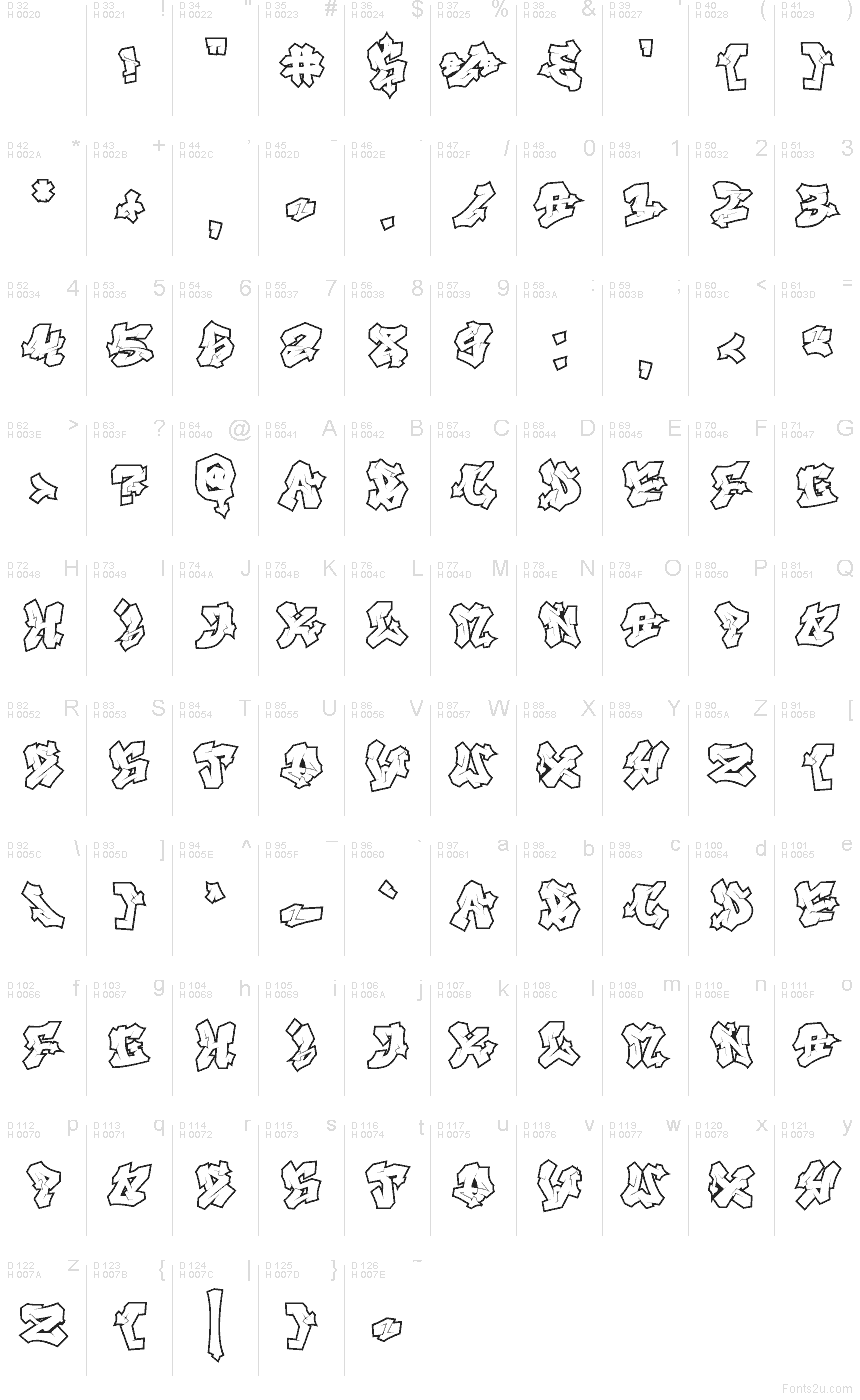
Nightclaw Vandal Outline Outline
Nightclaw Vandal Outline font by Muhammad Panji Ramdhani and Ferbiya Rahmat of Cikareotype brings the Nightclaw Vandal family to life with a jagged outline that feels chipped, sketched, and loud. The chunky graffiti shapes lock together like broken concrete tiles, with enough white space inside to keep big headlines readable. It’s a free graffiti font, and this typeface nails that raw wall-tag energy without turning into a messy blob.
Using Nightclaw Vandal Outline shines on streetwear logos, skate posters, album covers, gaming thumbnails, event flyers, YouTube titles, and sticker designs. Set it large, give it breathing room, and let the outline do the shouting—no heavy effects needed. Pair this free font with a clean sans for dates, locations, or captions so the chaos stays controlled.